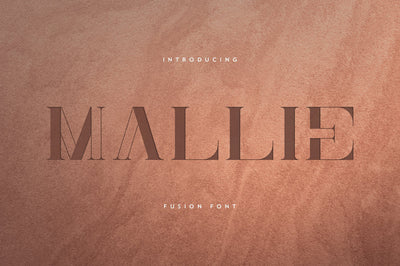
Mallie - Fusion font
INTRODUCING Mallie - Fusion font
Mallie is modern, fusion font with multilingual support. It's a very versatile font that works great in large and small sizes.
Mallie is perfect for branding projects, home-ware designs, product packaging, magazine headers - or simply as a stylish text overlay to any background image.